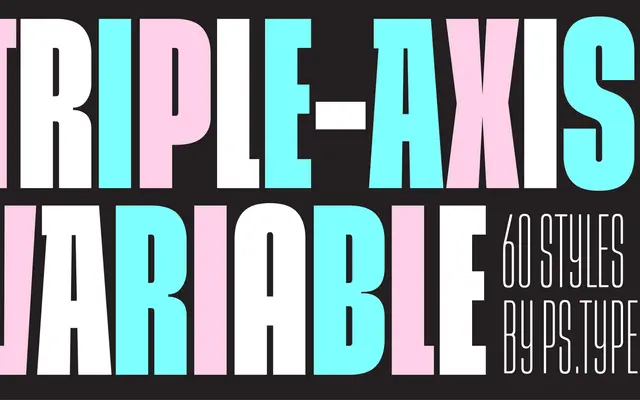
Snug Sharp
A triple-axis variable sans spanning weight, width and x-height across 60 static styles and a single variable font file.
Snug Sharp is the sharper companion to PS Type Lab's Snug, built as a triple-axis variable font covering weight, width and x-height. Each of three widths — Compressed, Compact and Regular — runs across ten weights from Thin to Black, with a standard and low x-height variant for each, totalling 60 static fonts. Optional round and geometric alternates give designers additional control over its character.
A crisp geometric sans with variable axes for weight, width and x-height, with stylistic alternates suggesting a clean, constructed letterform structure typical of geometric sans design.